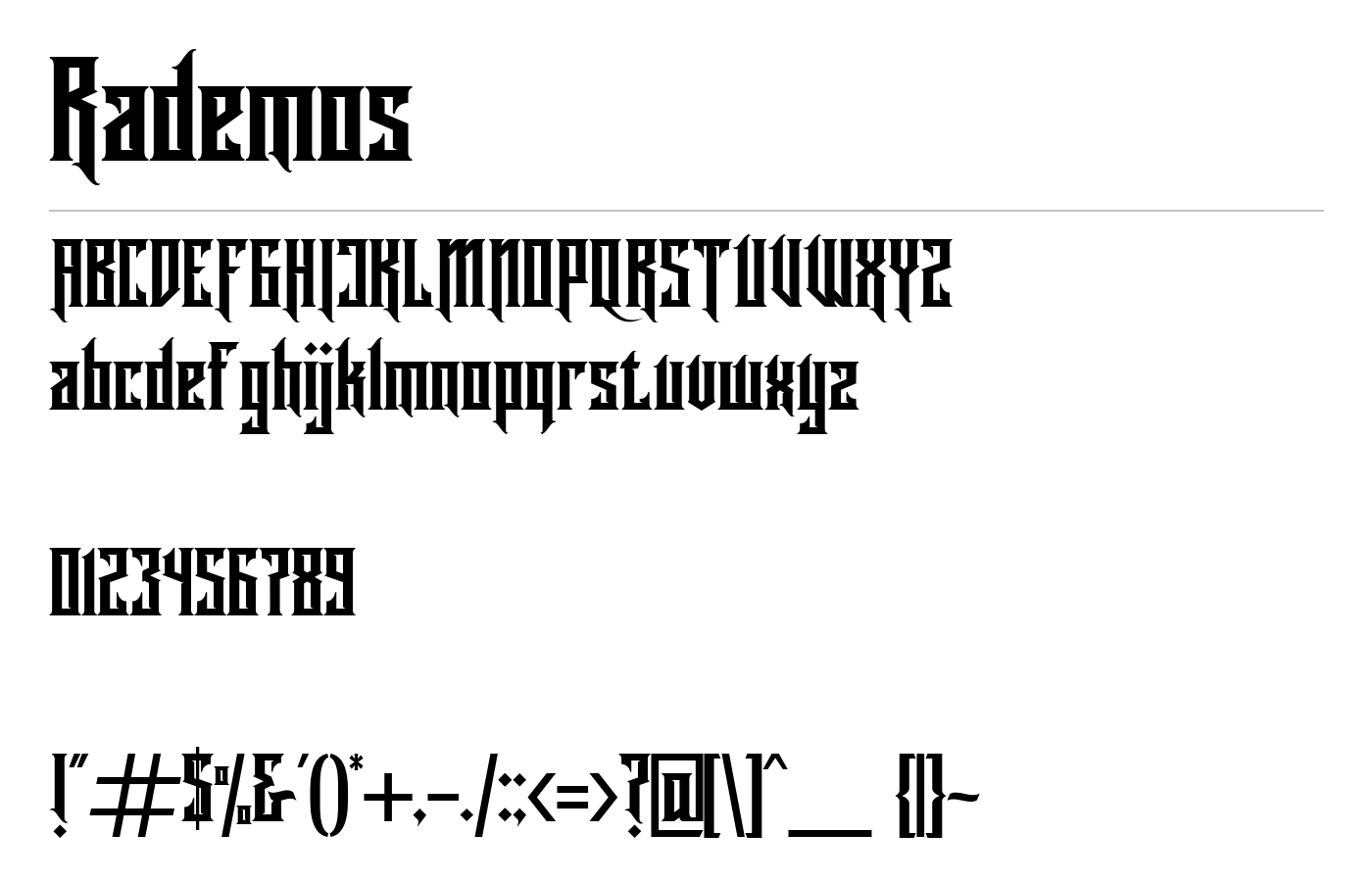
Rademos is a bold, condensed blackletter-inspired font with sharp, angular strokes and a strong vertical emphasis, giving it a striking and gothic appearance. Its tall, narrow letterforms and high contrast between thick and thin lines create a dramatic and intense personality, perfect for edgy branding, posters, and headlines that seek a vintage yet modern vibe. This font works best in display settings where its unique style can shine, adding a distinctive and memorable touch to any project.
Rademos Font
About Rademos Font
| Font family | Rademos Font |
| Designer | Stringlabs |